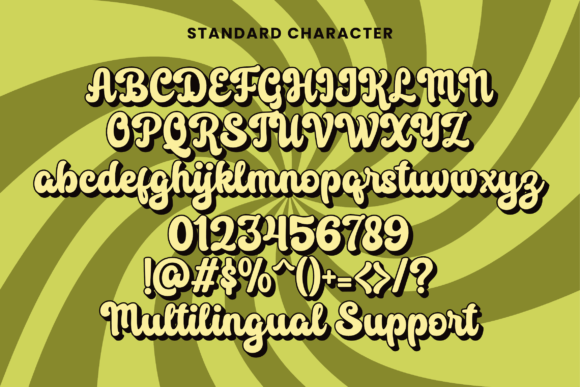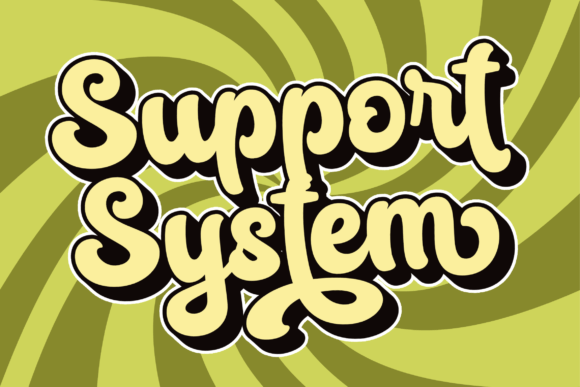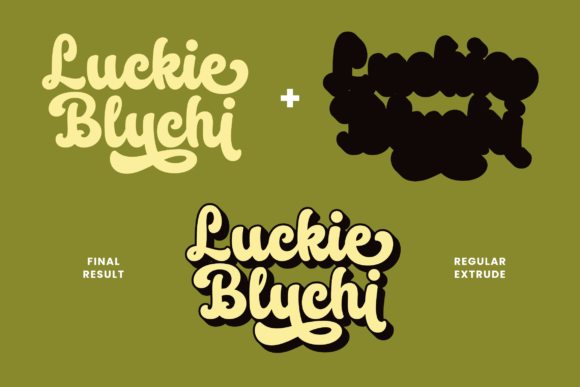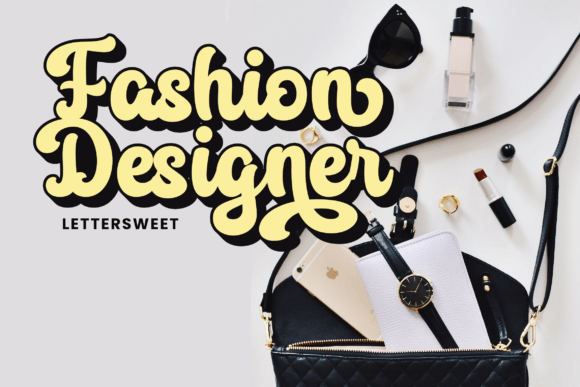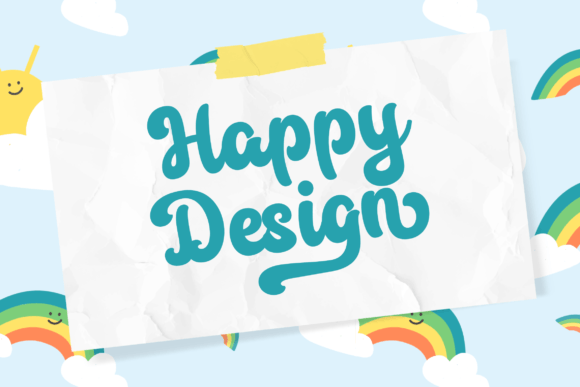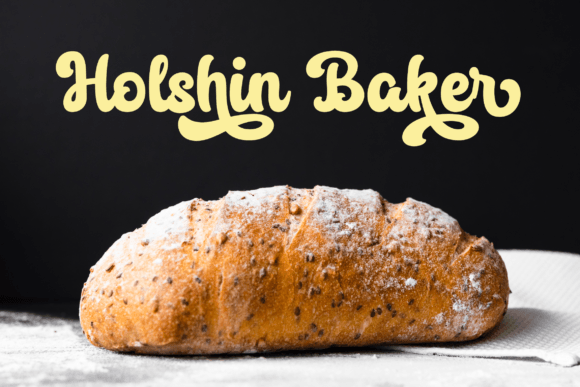
Introduction to Luckie Bluchi Font
Luckie Bluchi is a vintage and bold handwritten font with extrude style.
Fall for its ravishing style and use it to create gorgeous designs It has beautiful and well-balanced characters and as a result.
Key Features of Luckie Bluchi Font